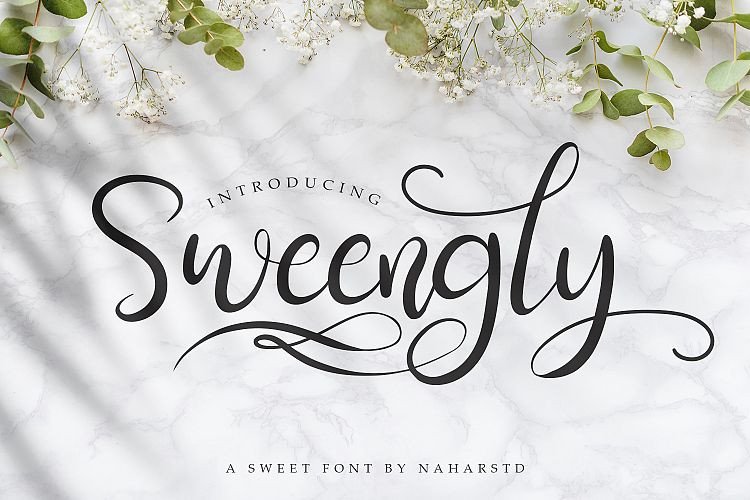
Sweengly Script Font
This is a lovingly modern script calligraphy, elegant and tasty flow. Work in harmony with this font to create extraordinary calligraphy creations. Introducing Sweengly Font. It’s a sweet script font, will be suitable for any projects such as logo’s, branding projects, homeware designs, product packaging, mugs, quotes, posters, shopping bags, t-shirts, book covers, name card, invitation cards, greeting cards, label, photography, watermark, special events, and all your other lovely projects that need beautiful handwriting taste.